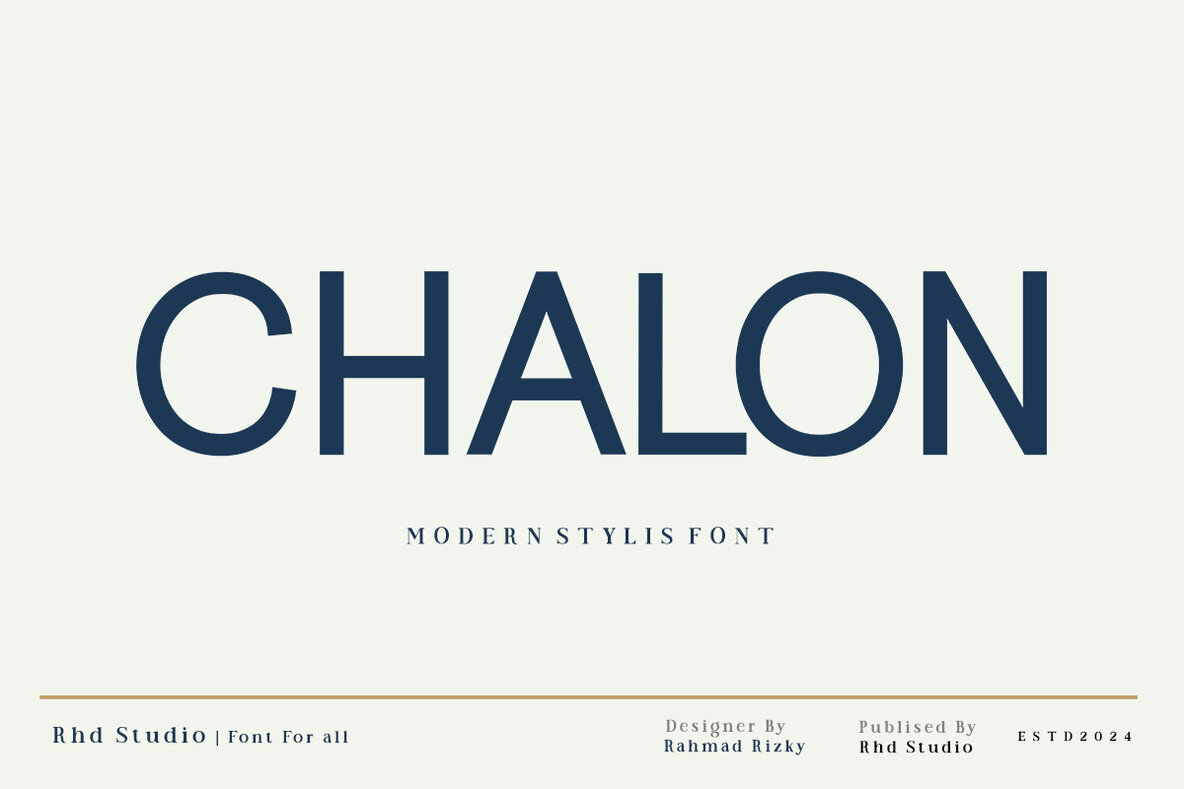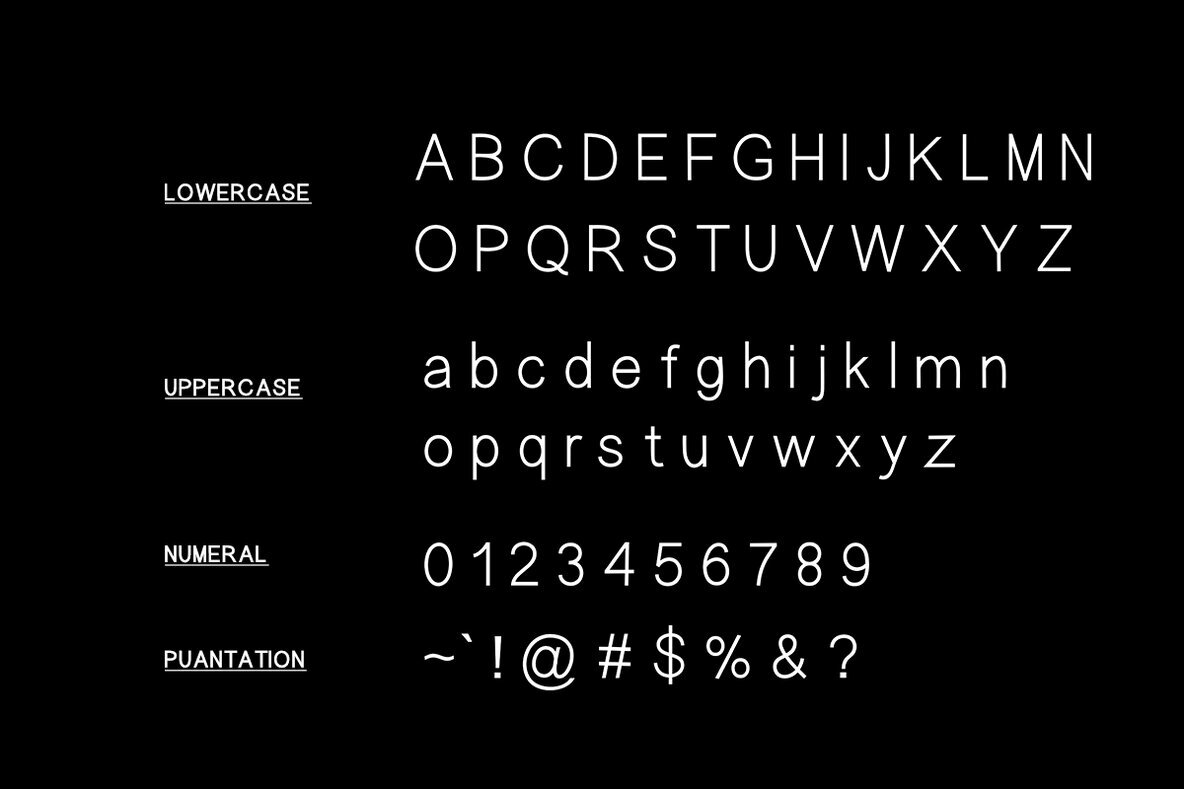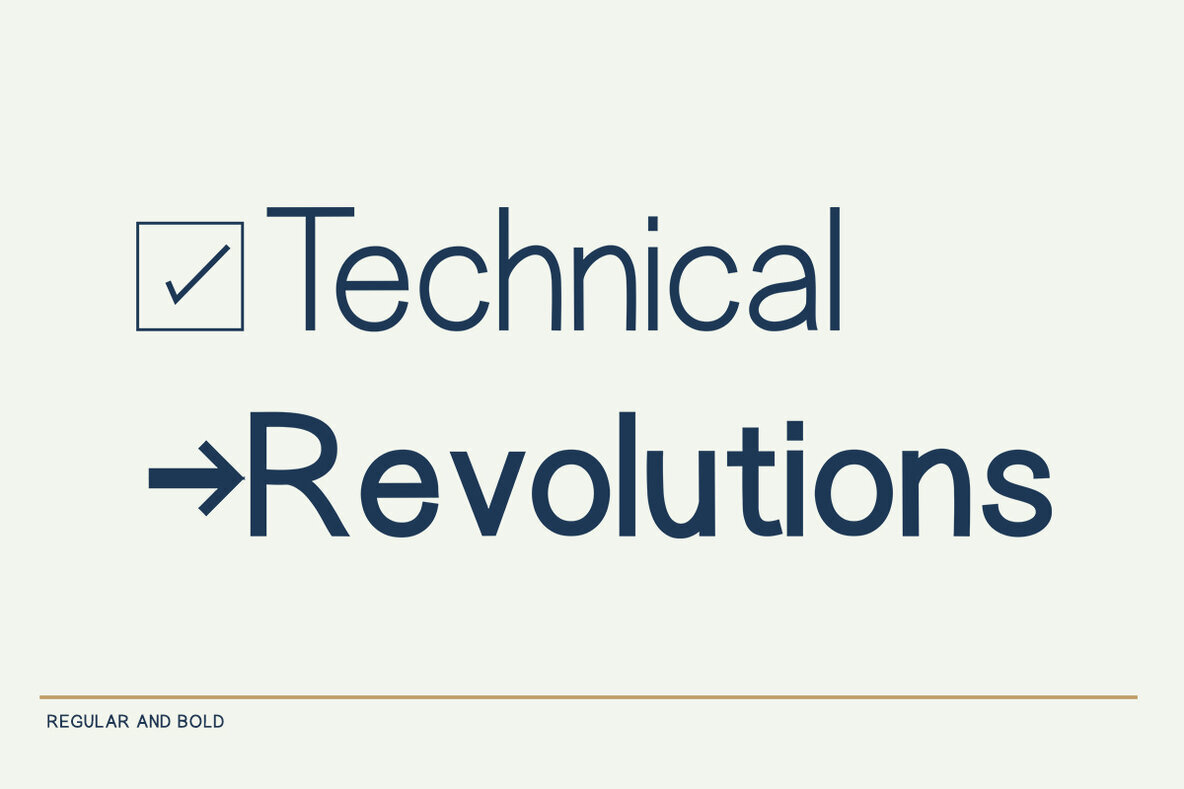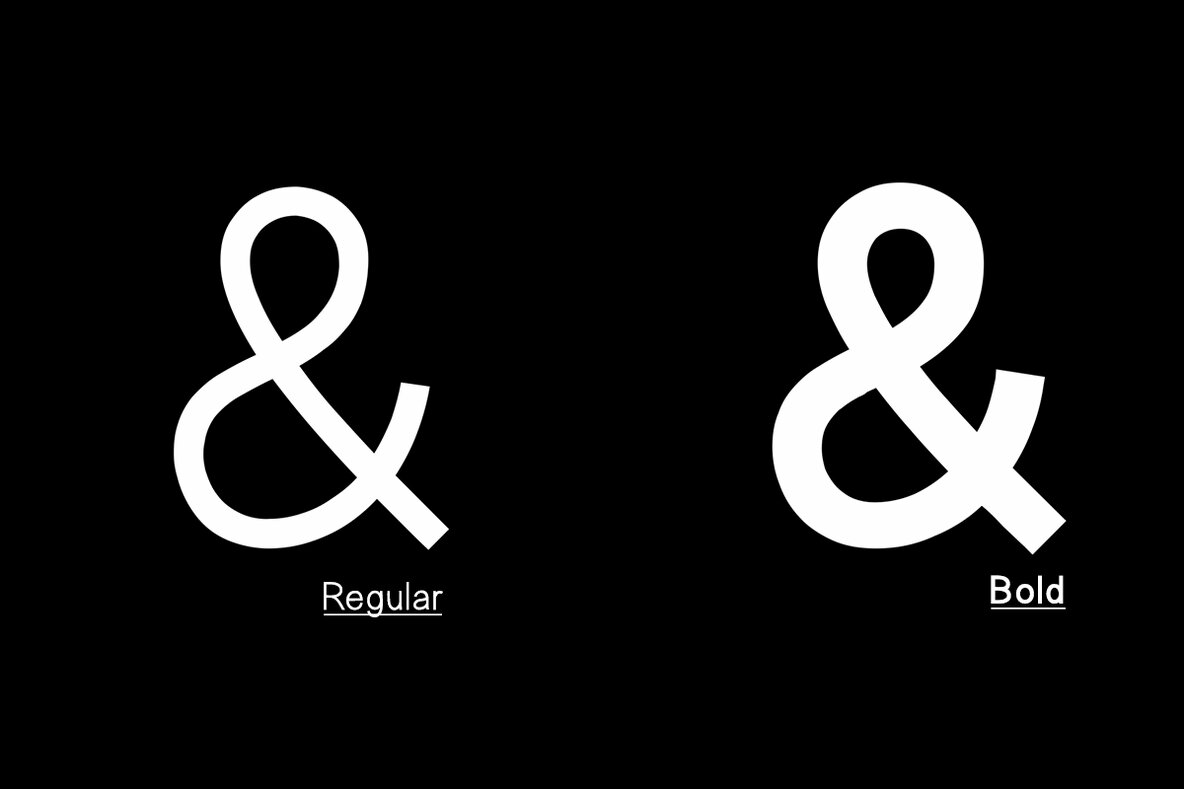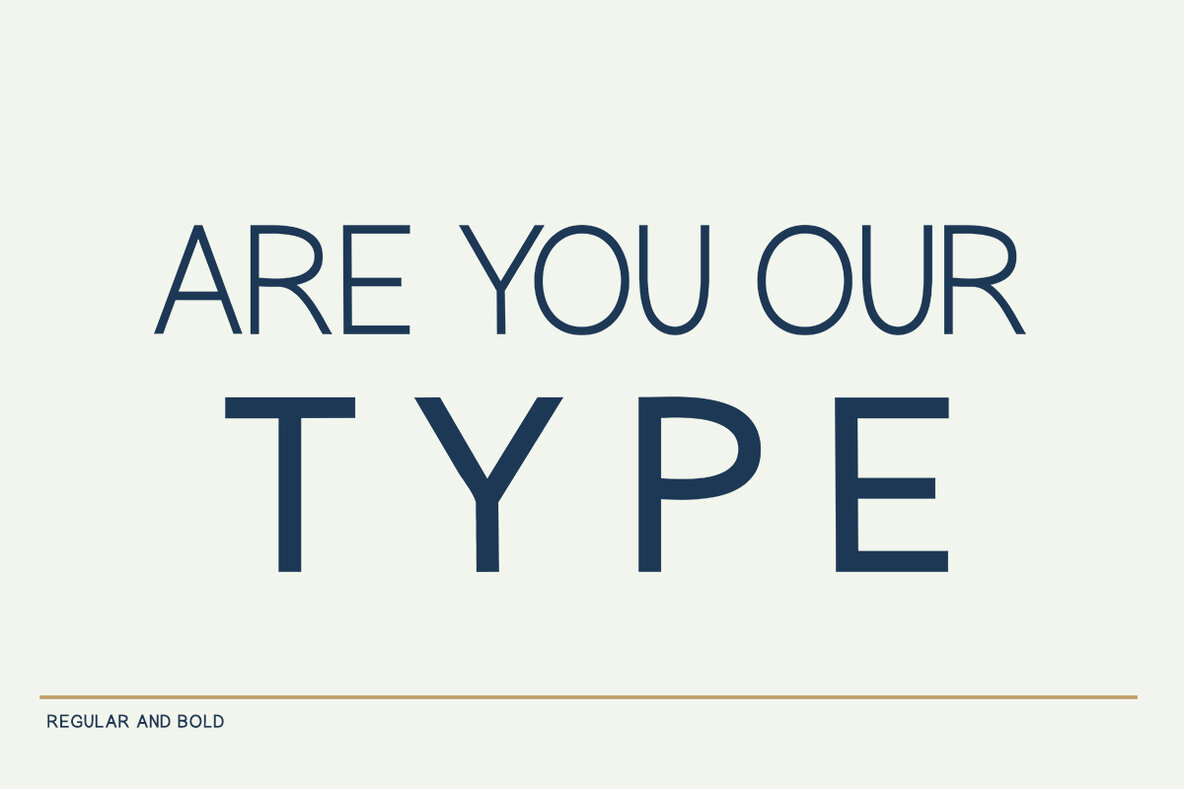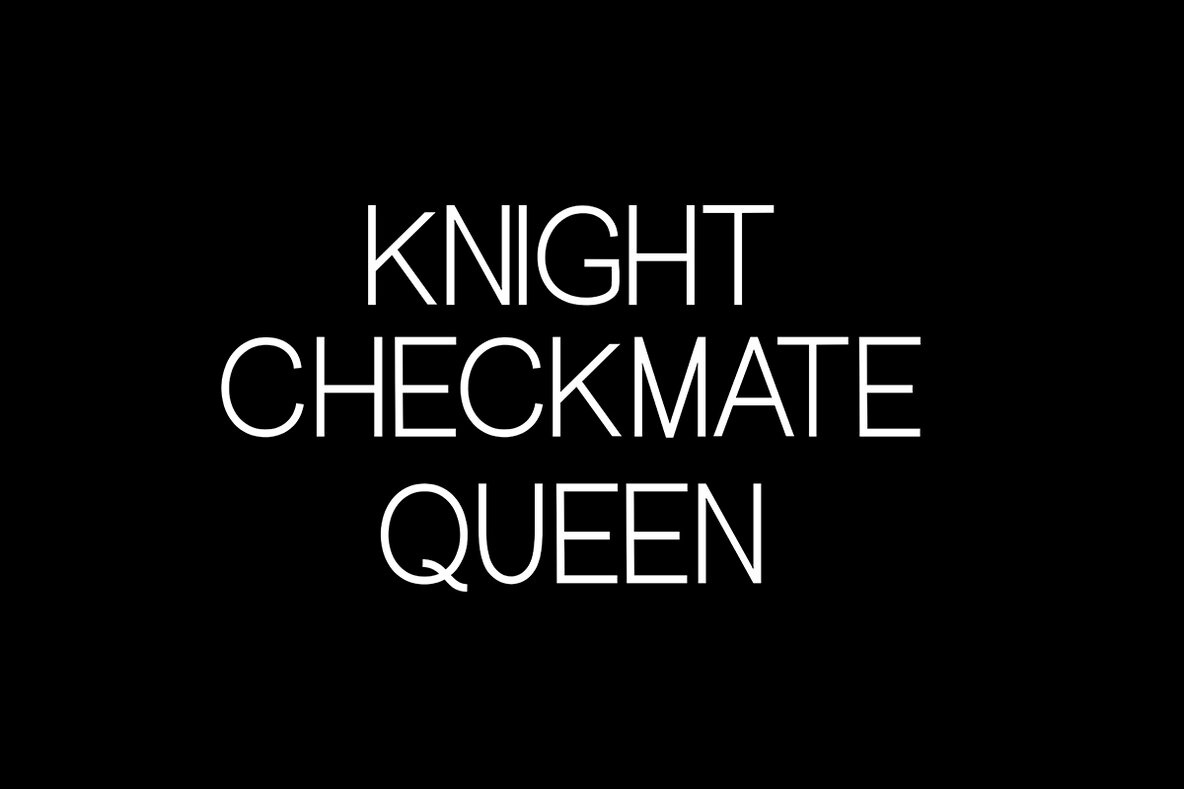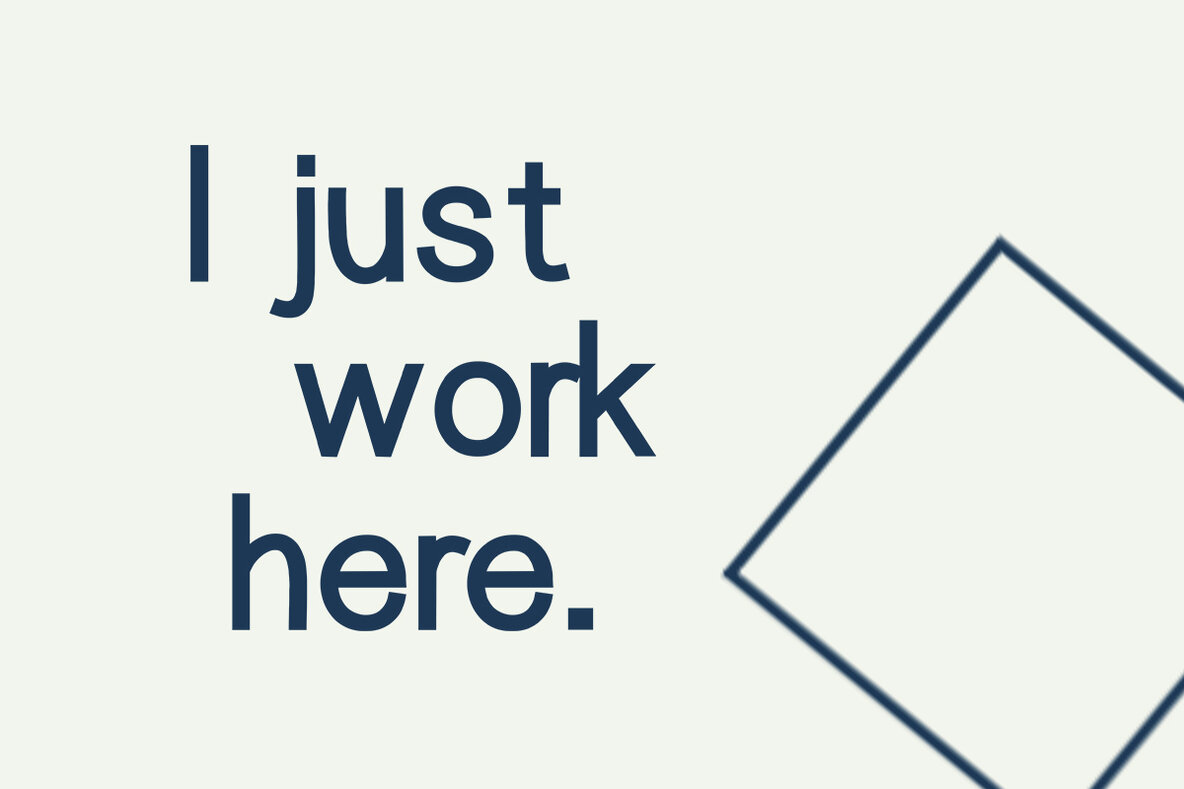
Chalon Font
Chalon offers a contemporary take on the sans serif genre, tailored for branding, editorial, and digital applications. Its minimalist letterforms convey clarity and restraint, supporting high readability across a range of formats. Chalon’s distinct yet subtle personality makes it suitable for logos, corporate identities, advertising, product packaging, and visual communication projects that demand straightforward sophistication. Designed with flexibility in mind, this font provides regular, bold, and italic weights, each carefully balanced for compatibility. Alternative characters and extensive punctuation allow for diverse typographic expression. The font’s clean geometry and measured proportions are ideal for designers looking to combine modernity with a strong visual presence.Chalon: Minimal Sans Serif With Corporate Precision